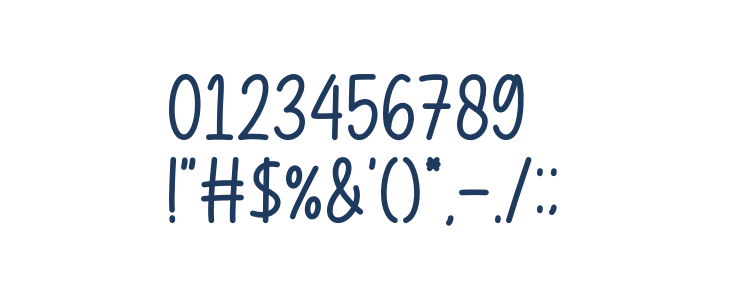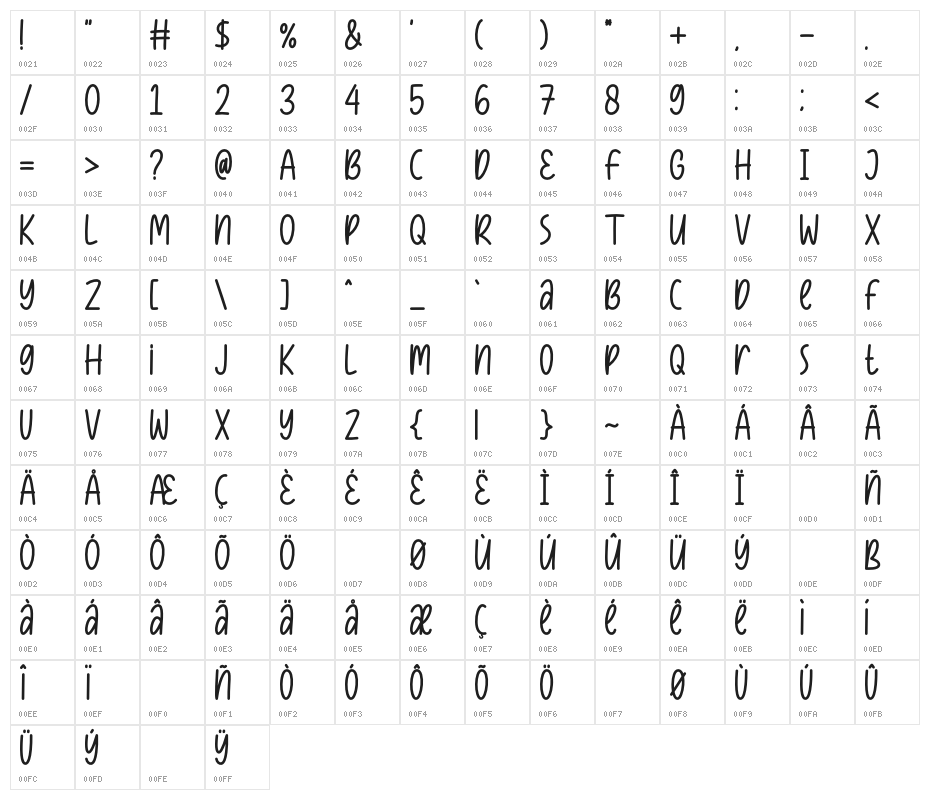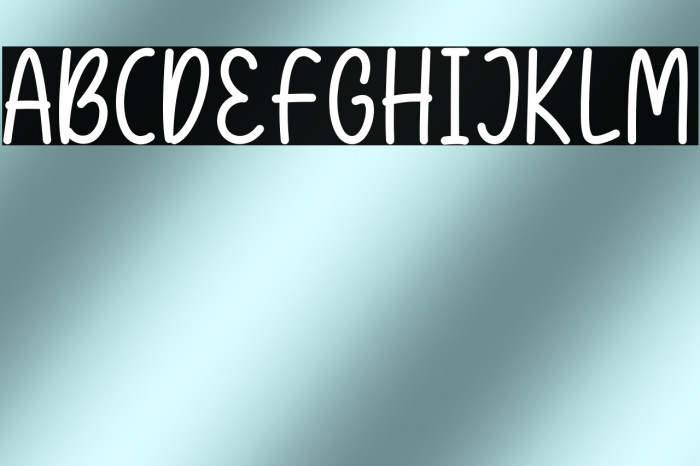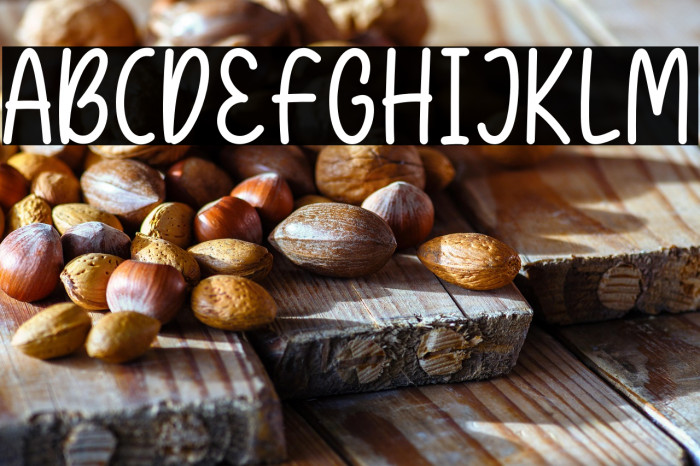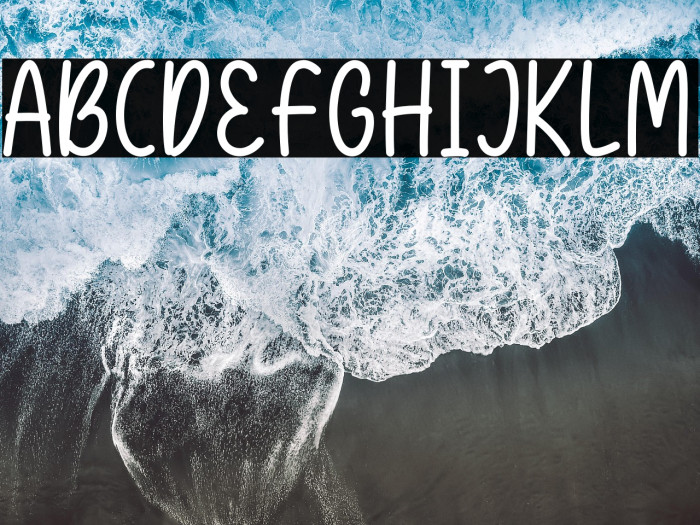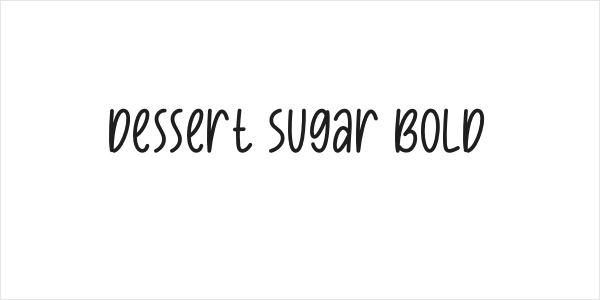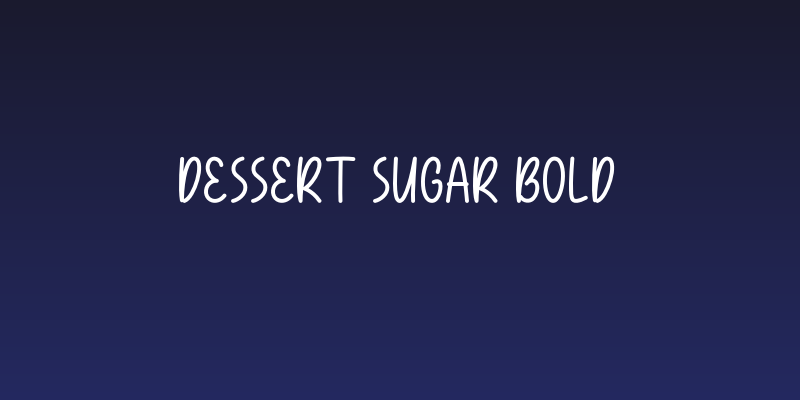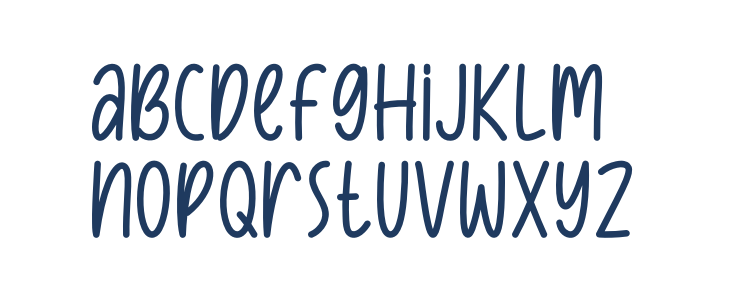
Dessert Sugar Bold Font
Dessert Sugar Bold Description
This playful and lively font features a handwritten style with a bold and rounded appearance. The characters are slightly irregular, adding a whimsical and casual feel. The uppercase and lowercase letters maintain a consistent flow, while the numerals and special characters complement the overall design. The strokes are smooth and uniform, giving it a friendly and approachable look. This font is perfect for projects that require a personal touch or a fun, informal vibe.
| Proposed Projects | Ideal for greeting cards, children's books, playful branding, and social media graphics. |